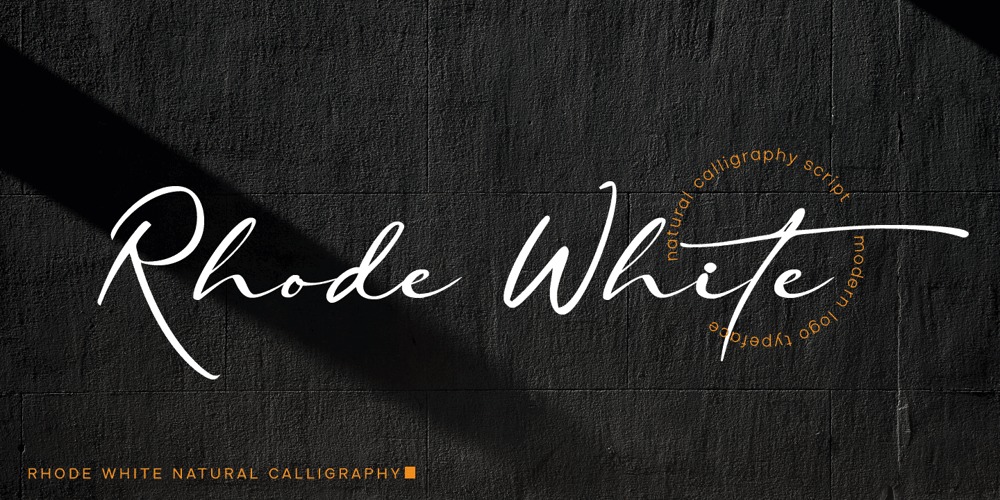
Rhode White Font Family was designed by Muhammad Ridha Agusni, Siti Saribanon Nurjannah and published by Cititype. Rhode White contains 1 styles and family package options. ‘Rhode White’ is a natural calligraphy font. We created this font for modern brands. branding and branding only.The soft, unique and natural touch gives a different impression, it invites attention to take a closer look at your brand.This is a font favoured by agencies who like modern branding, you can make a large number of logos with one font because this font is suitable for use in web logos, personal signatures, portfolios, prints, header, magazine, book cover, t-shirt print, craft, and cosmetic packaging.Again, this is a font worthy of your collection. Thank you,